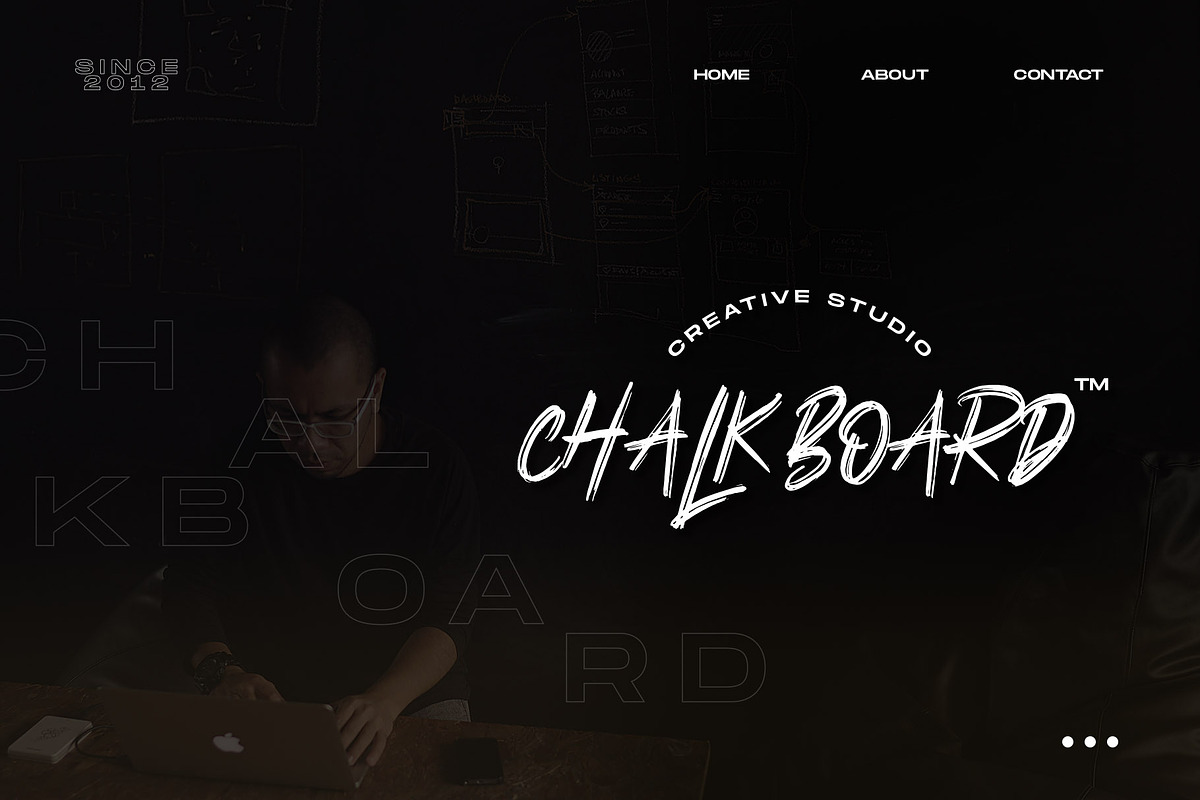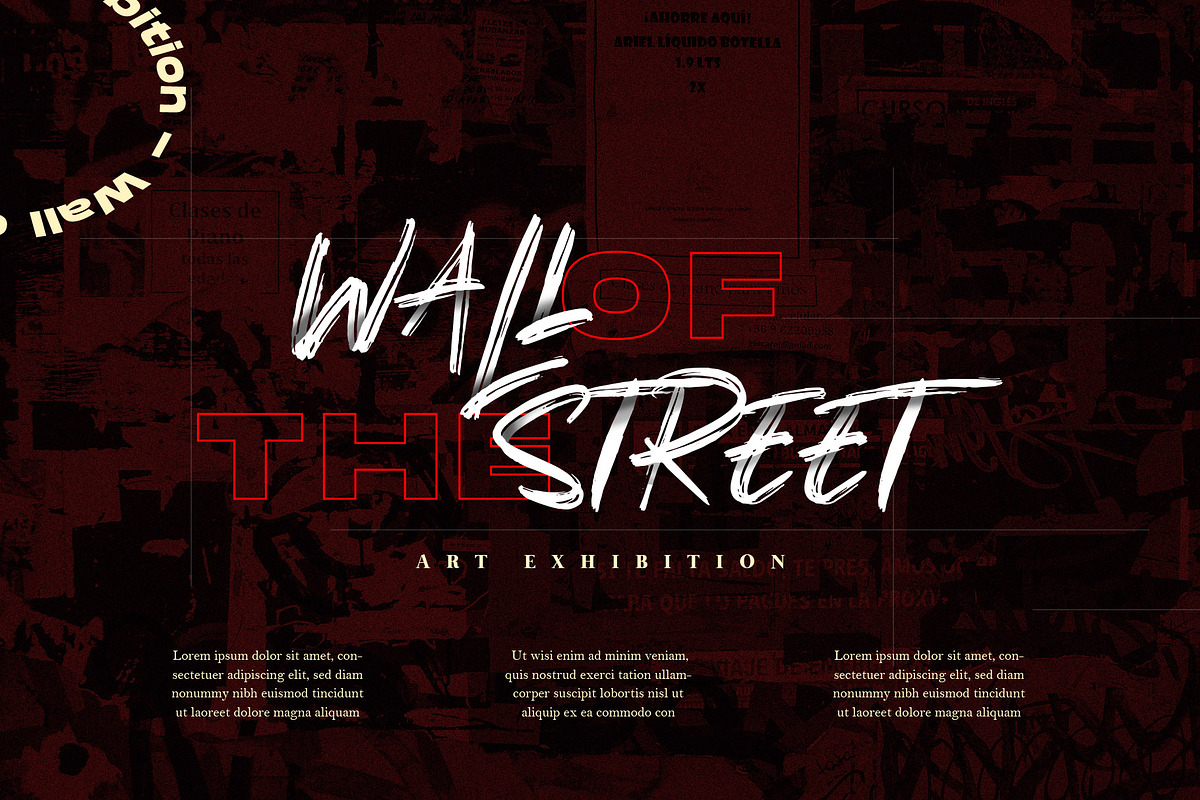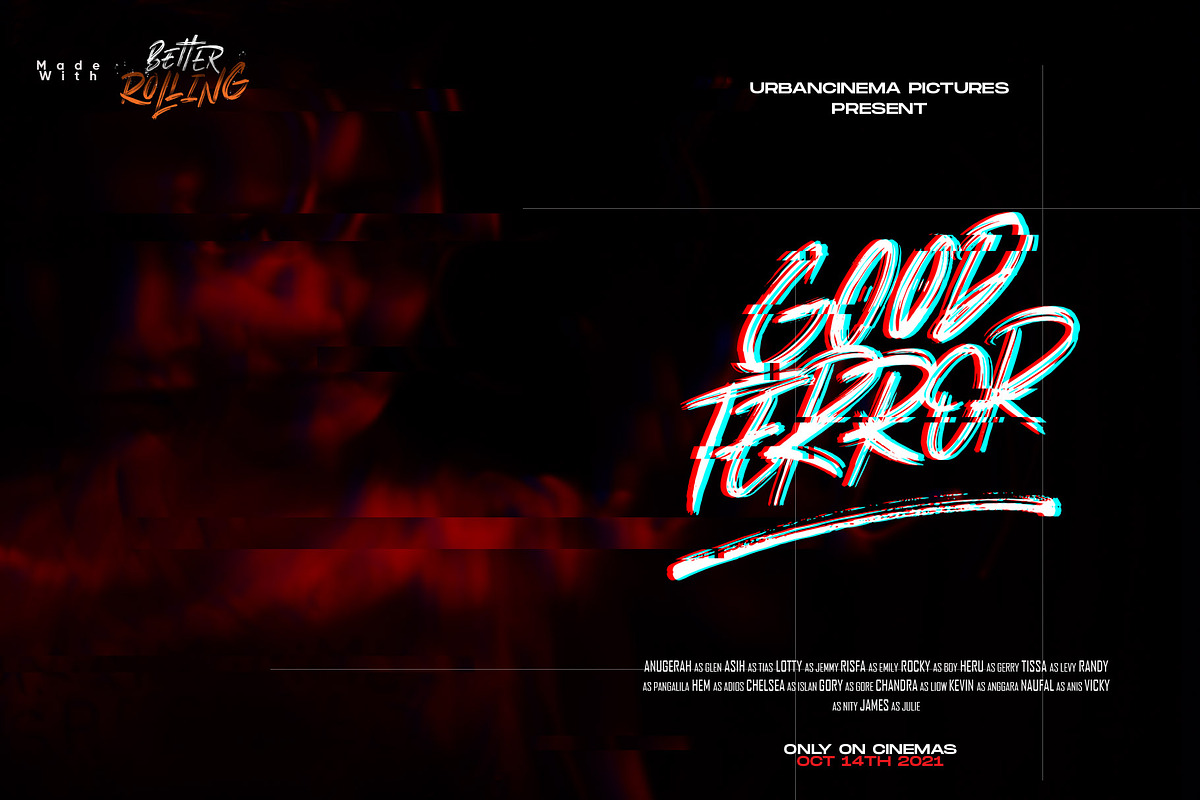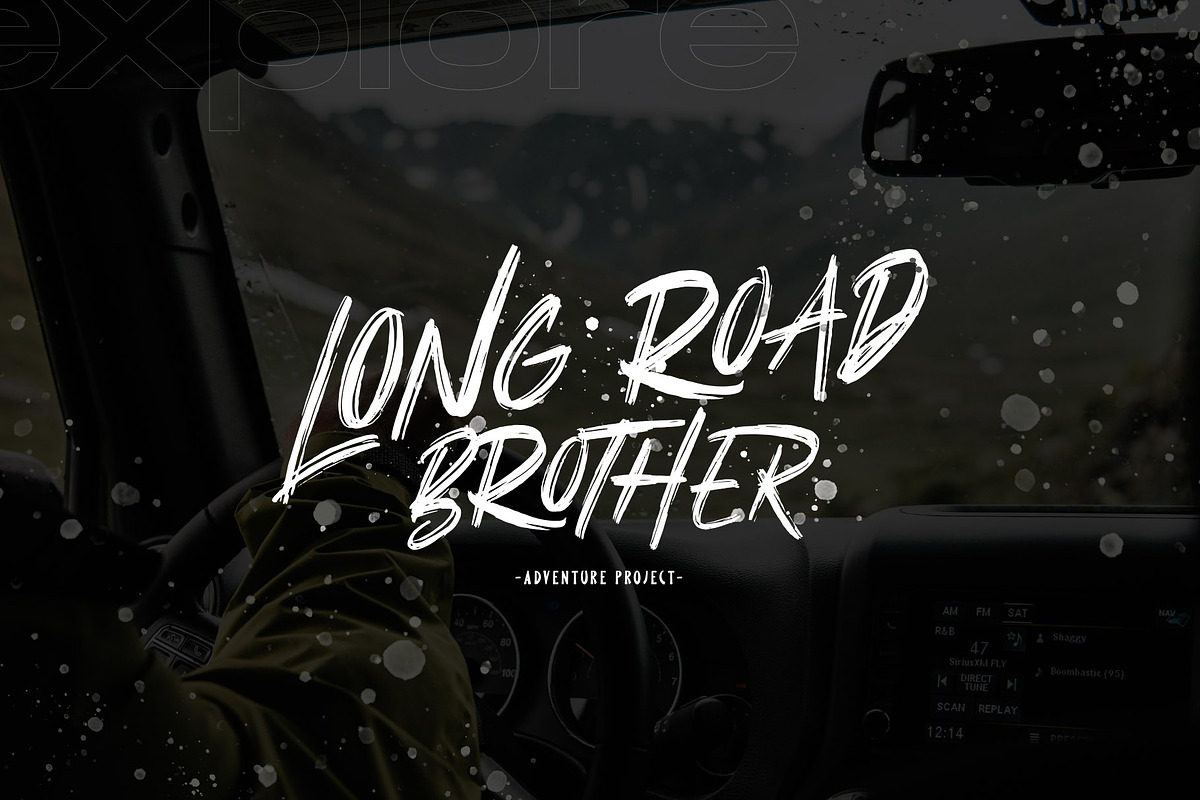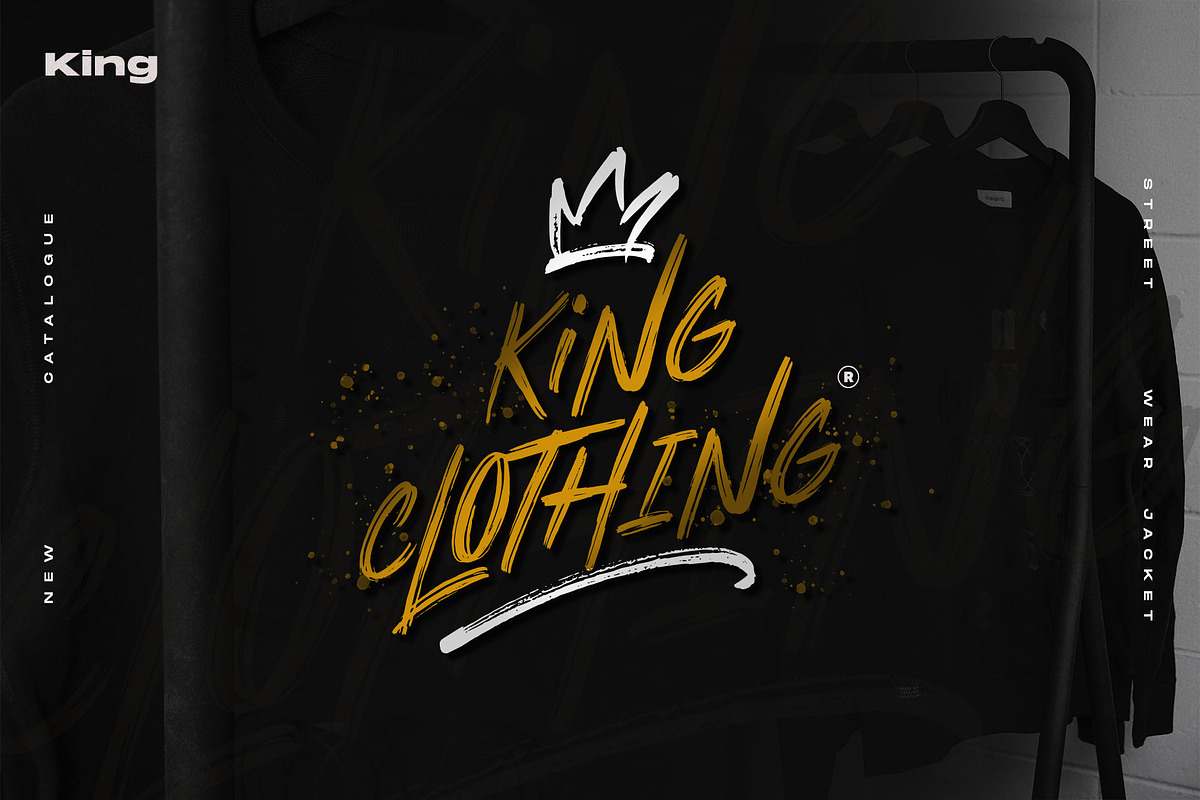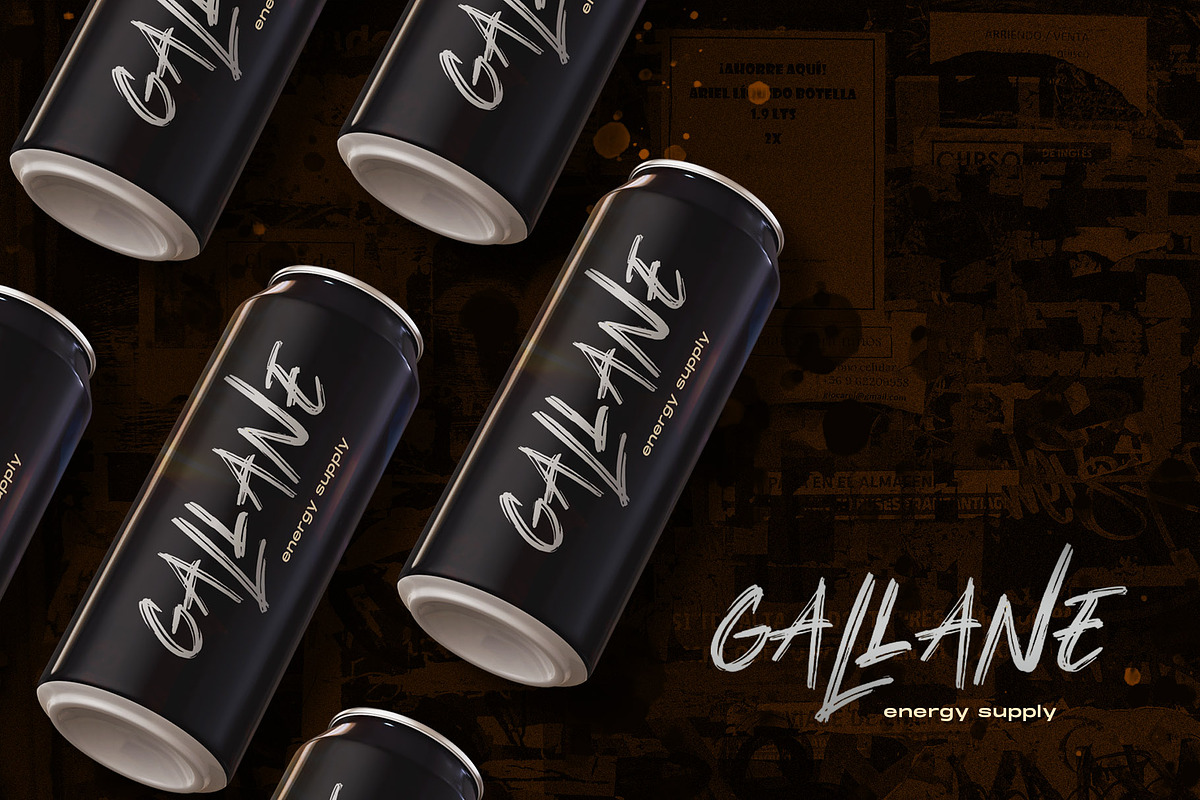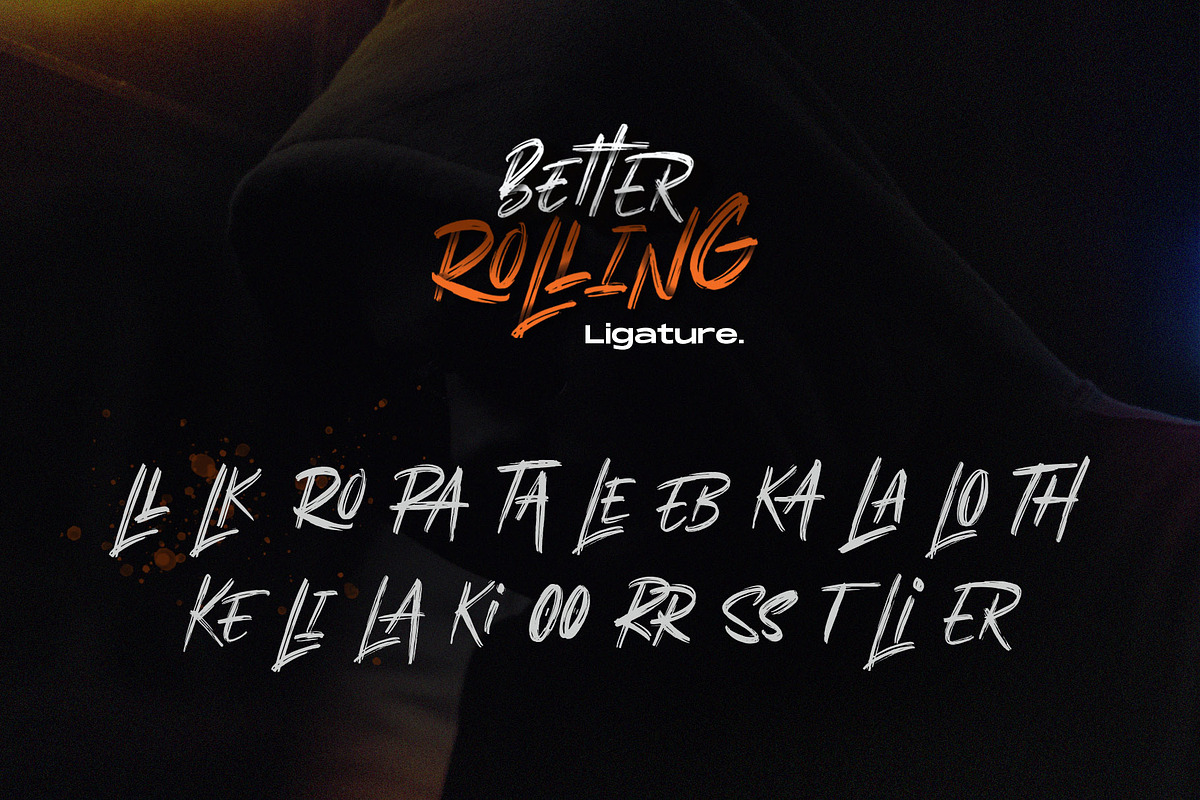
Better Rolling - Brush Font
Better Rolling is the modern hand brush font, a supercharged, street-wise brush font bursting with energy. With extra attention to quick strokes and sharp details. Each character was carefully brushed so the textured comes like real.
Suitable for any design needs : branding, logos, handwritten quotes, product packaging, merchandise, blog design, modern advertising design, invitation, Art Quote, Home decor, Book/Cover Title, Invitation, special events, birthday, custom mug, pillow, t-shirts, any brush lettering needs and more.
Better Rolling - a hand brused font comes with Standard Characters (all uppercase), Punctuation, Numerals. And other Glyphs variation of the OpenType features such as Stylistic Alternates, Stylistic Set and Ligatures. Accessible in the Adobe Illustrator and adobe indesign Glyphs panel, or under Stylistic Alternates in the Adobe Photoshop OpenType menu.
- Better Rolling Swash - a hand brushed swashes to add punch to your designs.
- What's Included : Better Rolling - a hand brused font comes with Standard Characters (all uppercase), Punctuation, Numerals.
- And other Glyphs variation of the OpenType features such as Stylistic Alternates, Stylistic Set and Ligatures.
Why Better Rolling - Brush Font is worth a look
Better Rolling - Brush Font by Masanis fits naturally into Branding, posters, packaging, typography.